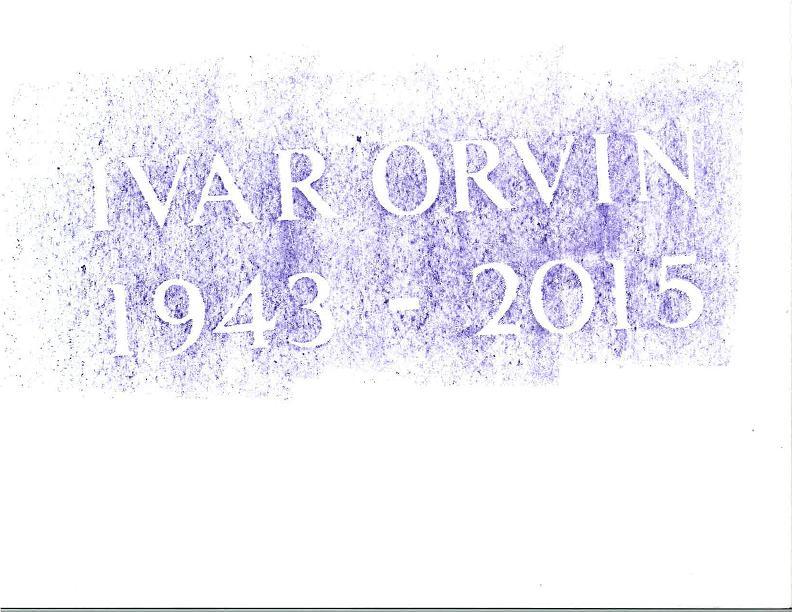
Font ID. This font has evaded me for a long time. Any help would be Appreciated
Hi Carl, this is a custom Cold Spring Granite font name Monument Times New Roman. It is based on Times but with some changes, including the letter ‘J’, and entirely different numbers.